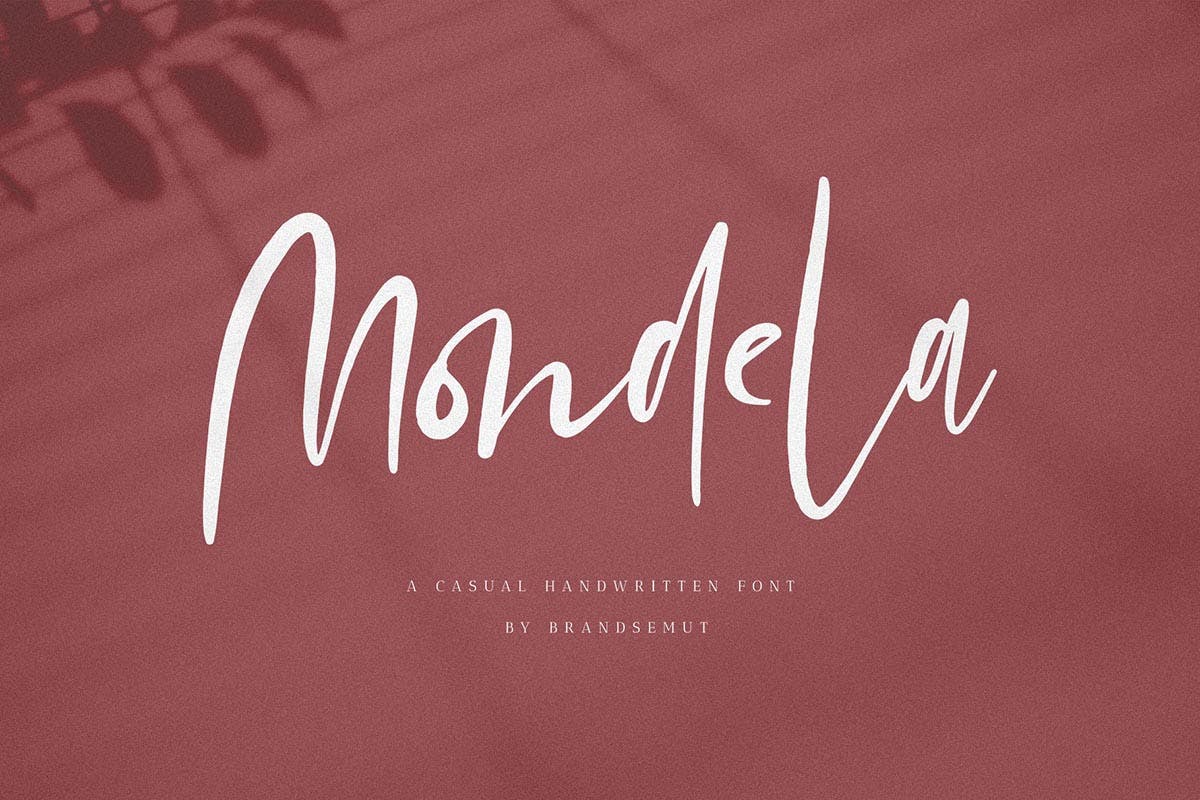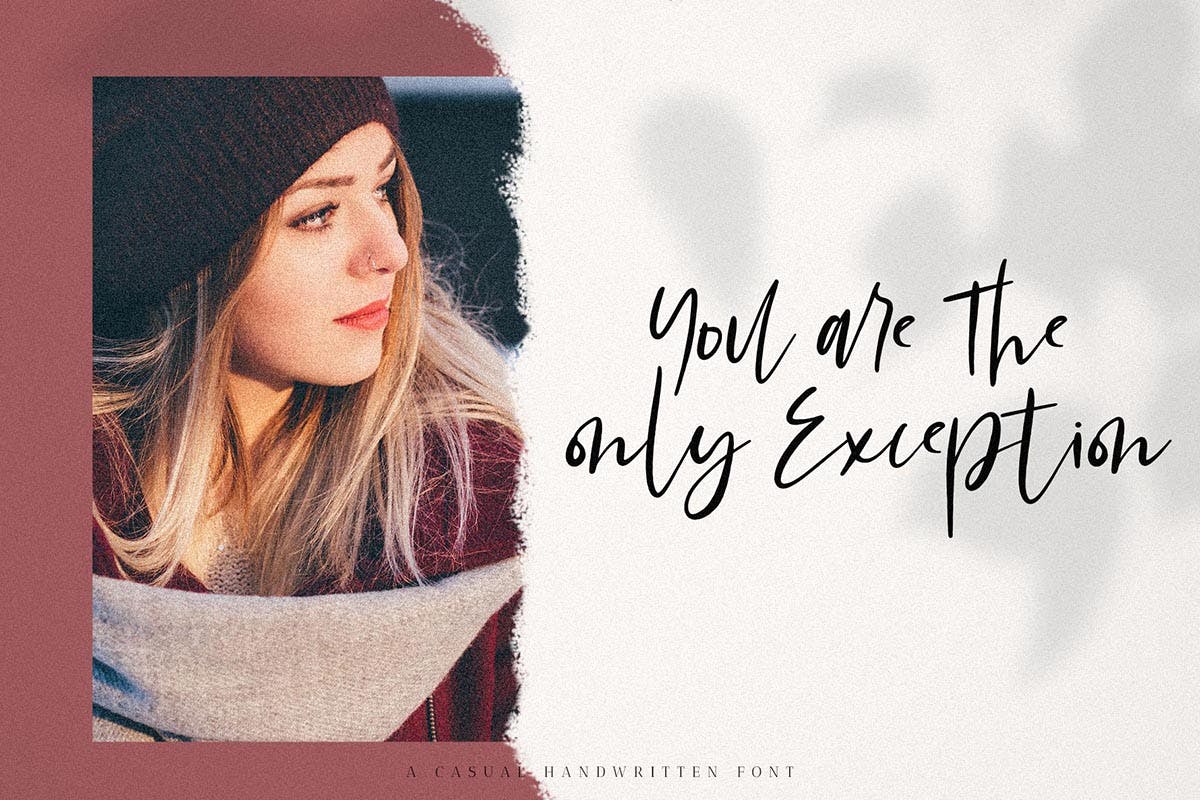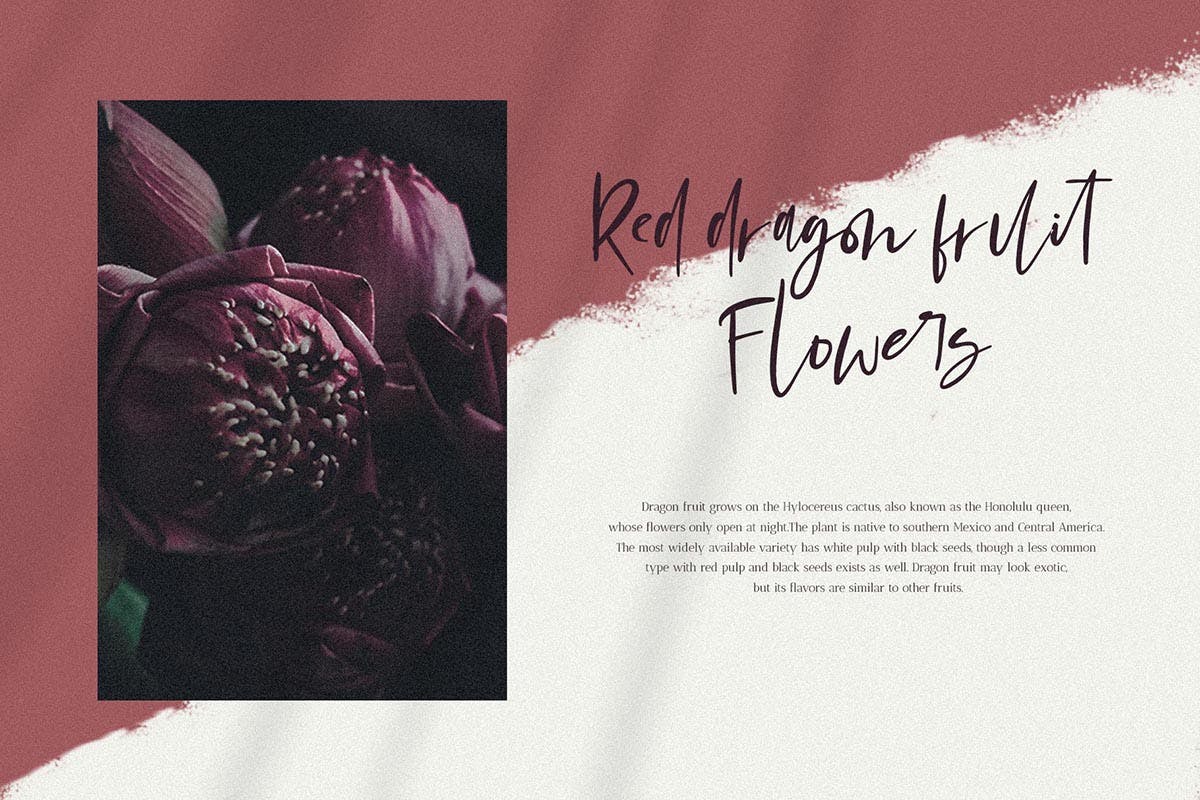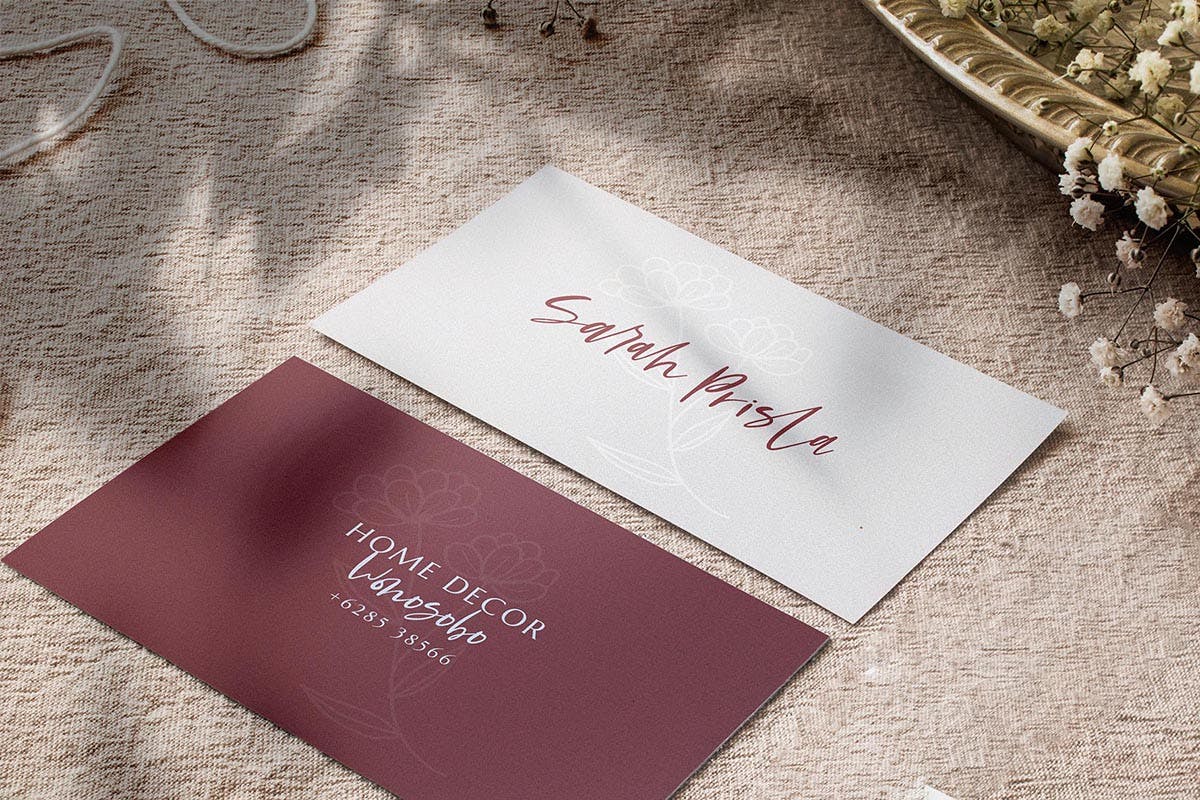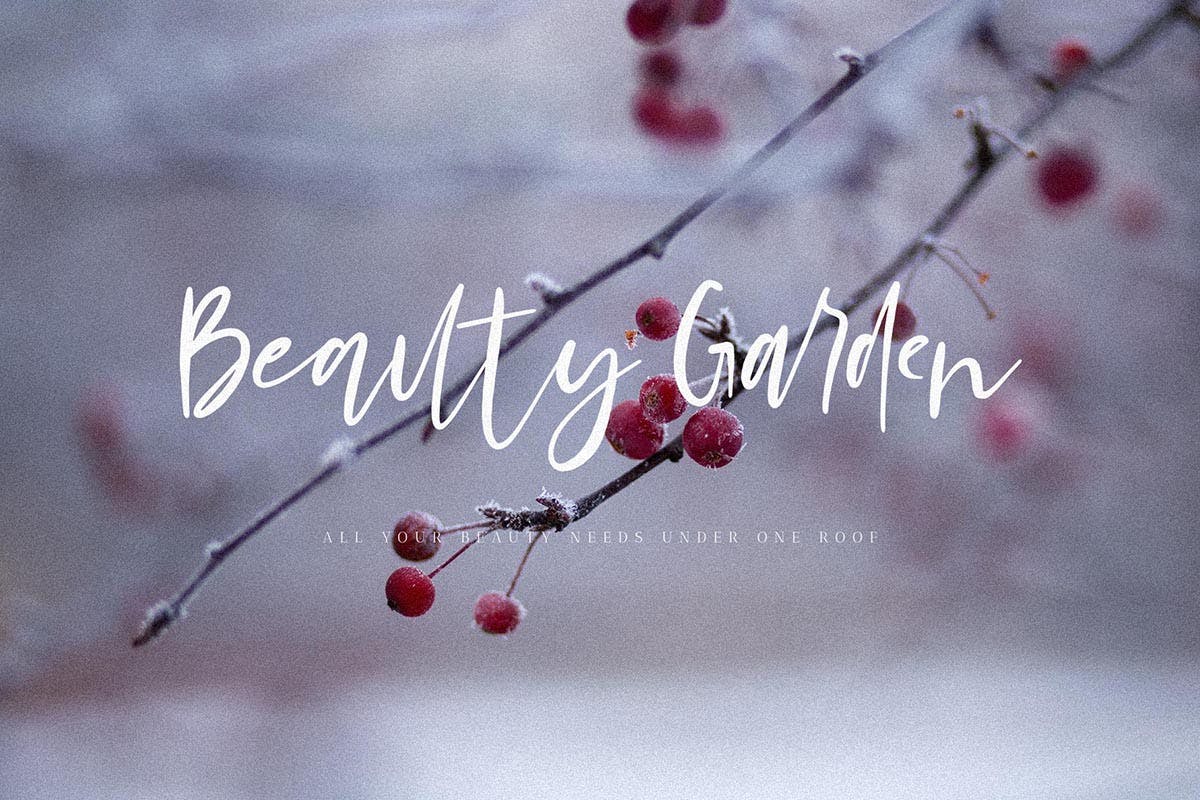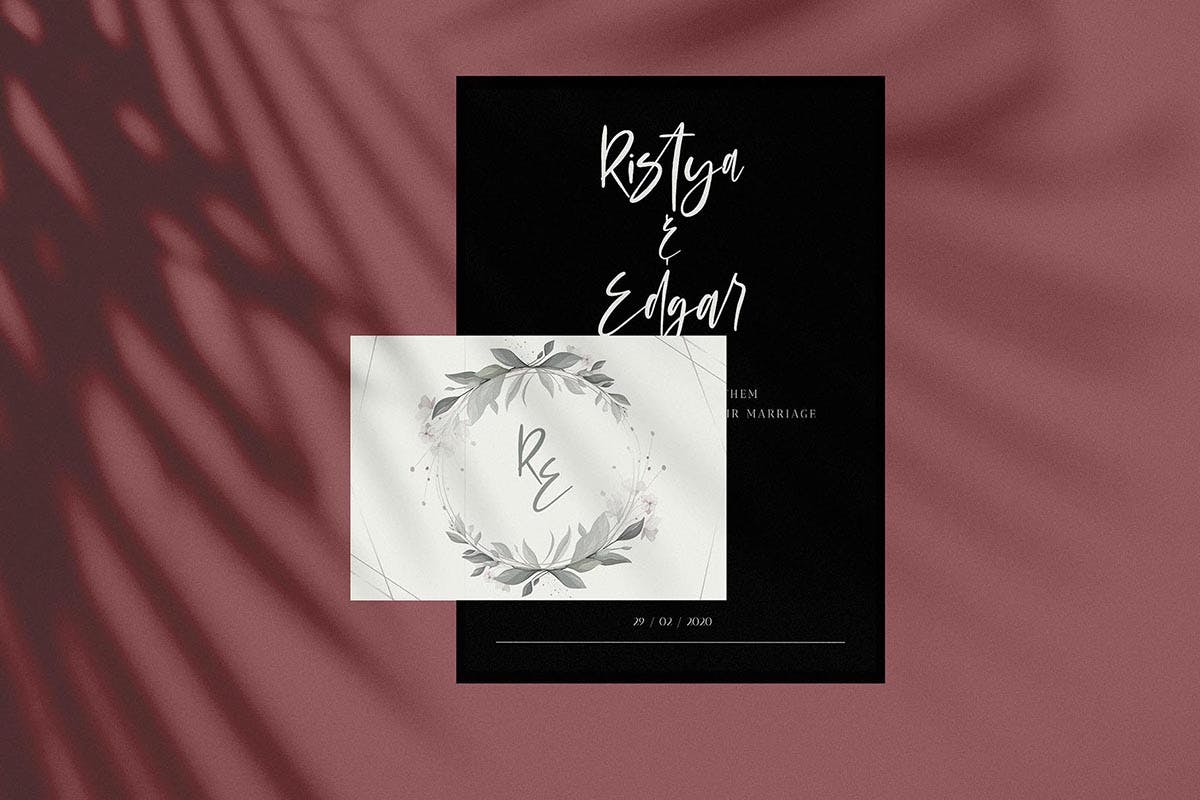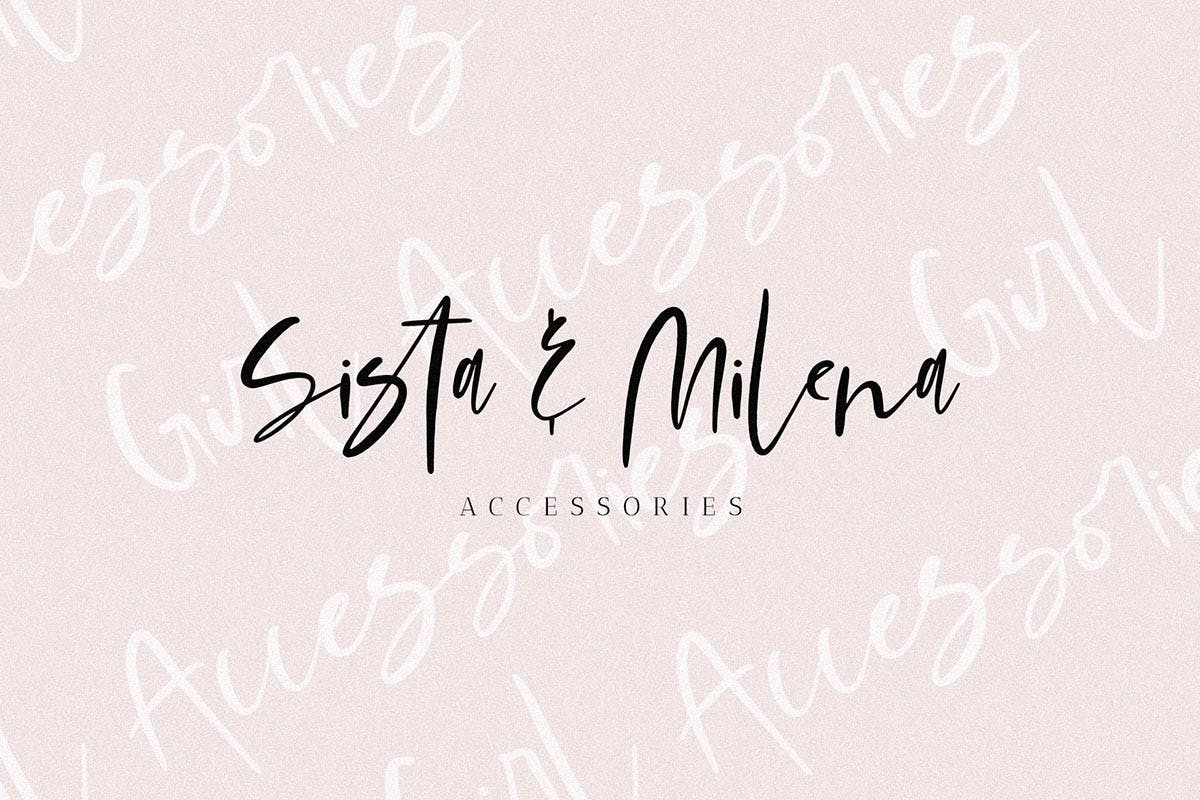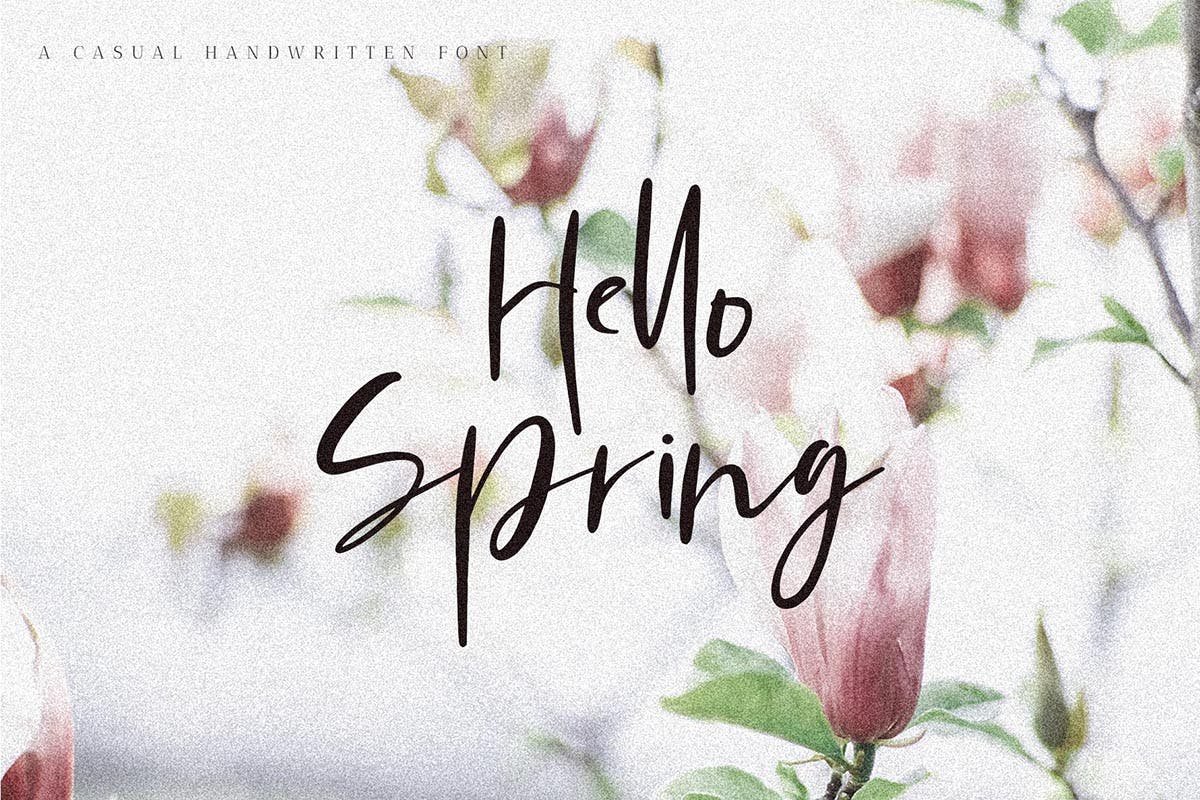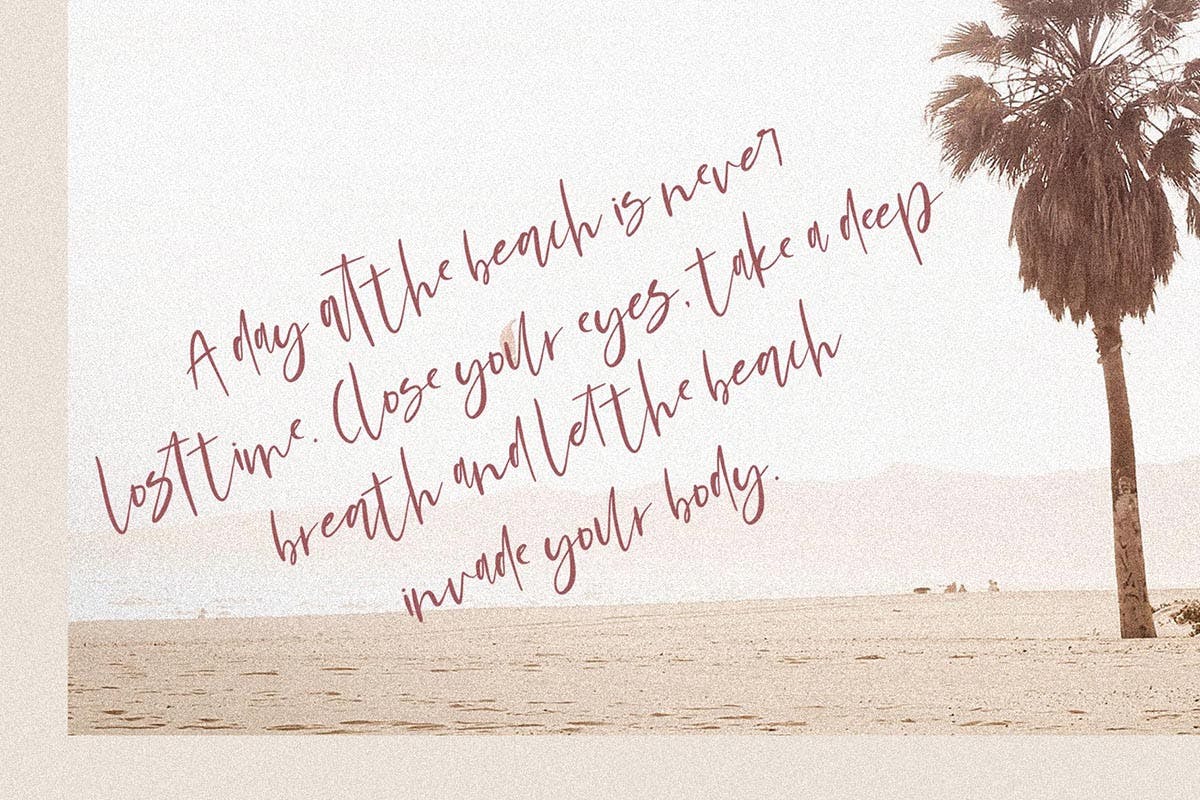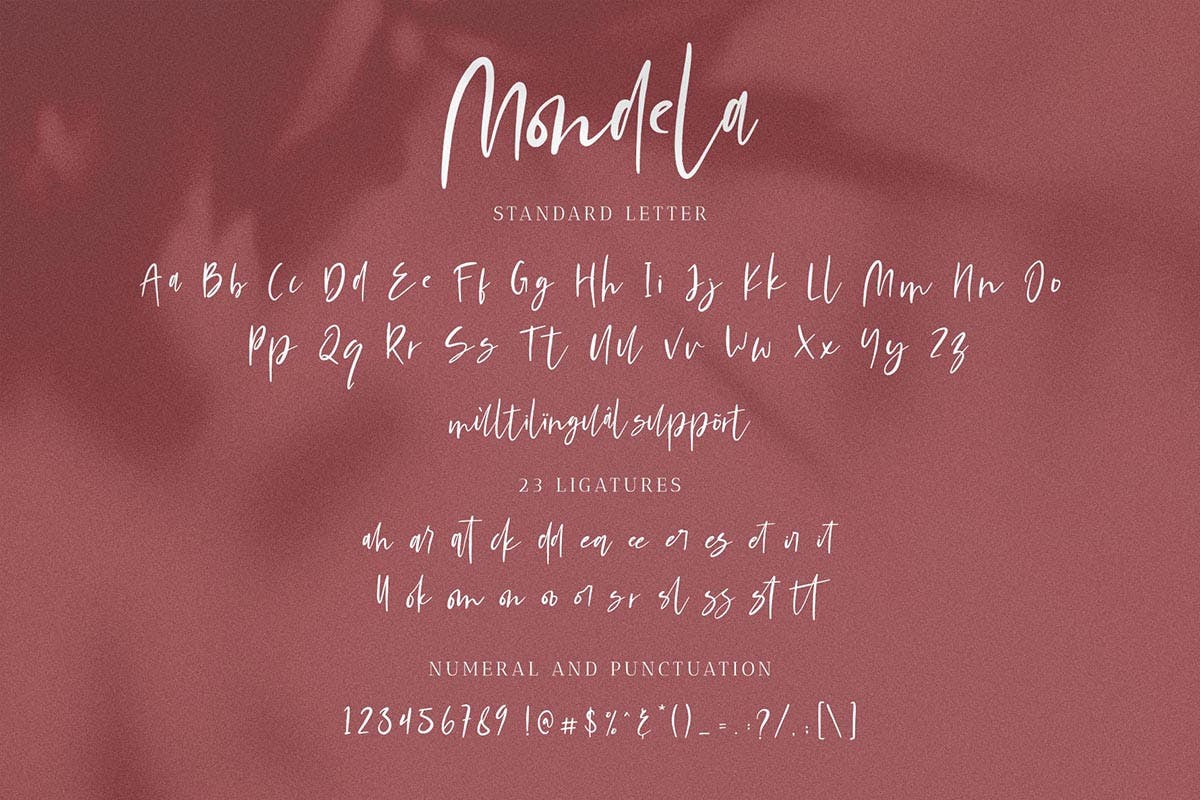
Free Mondela Casual Handwritten Font
Today, we have a new awesome demo font which is Free Mondela Casual Handwritten Font. It is a casual handwritten font, this font is coming with a unique character that will fit on your designs. This font includes a full set of uppercase and lowercase letters, and more other features as well. It is also suitable for your works such as logos & branding, advertisement text, quotes, headers, and more. However, this demo font is coming with a personal license, but if you want to get more features for using it on commercial, go purchasing the premium version.